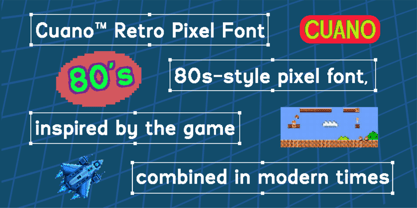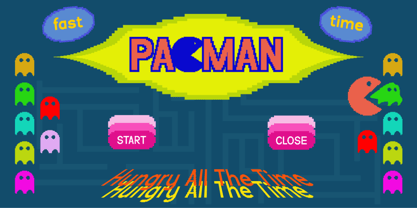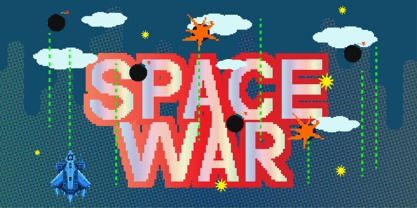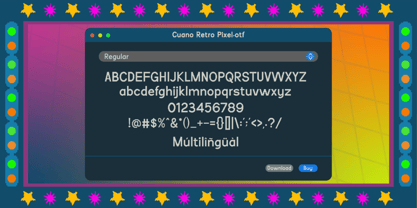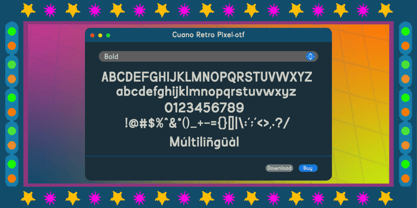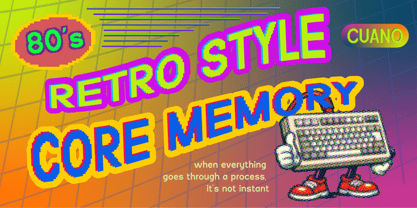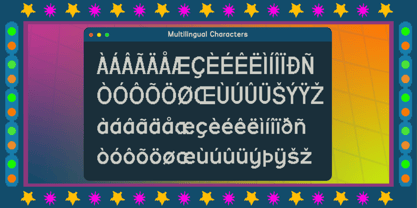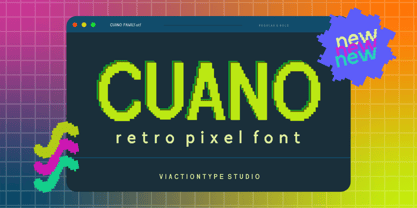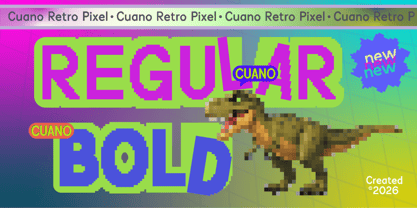
Cuano
by Viaction Type.Co
The Cuano Font Family was designed by Lukman Hidayat and published by Viaction Type.Co. Cuano contains 2 styles and family package options. More about this family
Bring back the golden age of classic gaming with Cuano, a bold retro pixel sans serif font inspired by the iconic 8-bit visuals of old-school arcade and video games.
Inspired by the pixel aesthetics of retro console games, Cuano features clean, blocky letterforms with a playful nostalgic character.
Available in 2 styles: Regular & Bold, Cuano gives you the flexibility to create everything from subtle retro typography to bold, attention-grabbing gaming graphics.
Perfect For
Gaming logos, arcade posters, game titles, YouTube thumbnails, Twitch graphics, pixel art, retro branding, posters, stickers, badges, social media designs, and nostalgic creative projects.
Turn your next design into a pixel-powered throwback with Cuano!